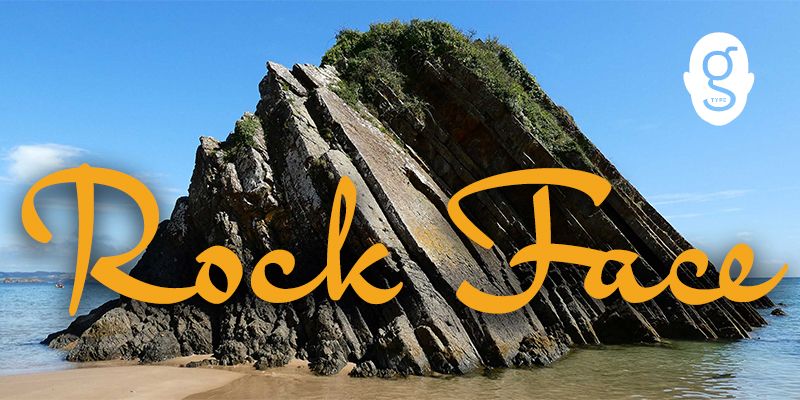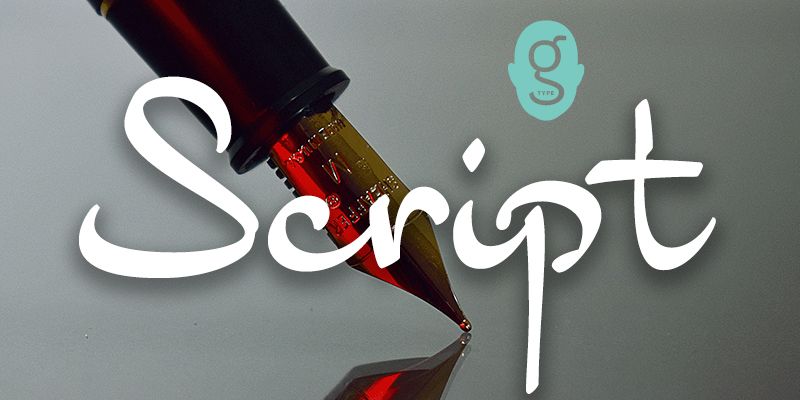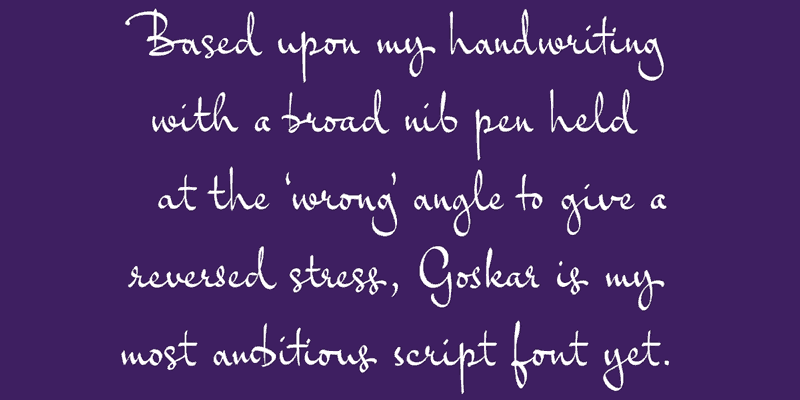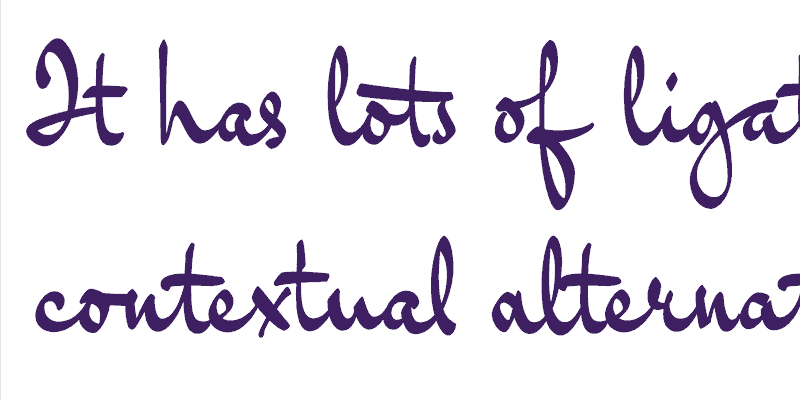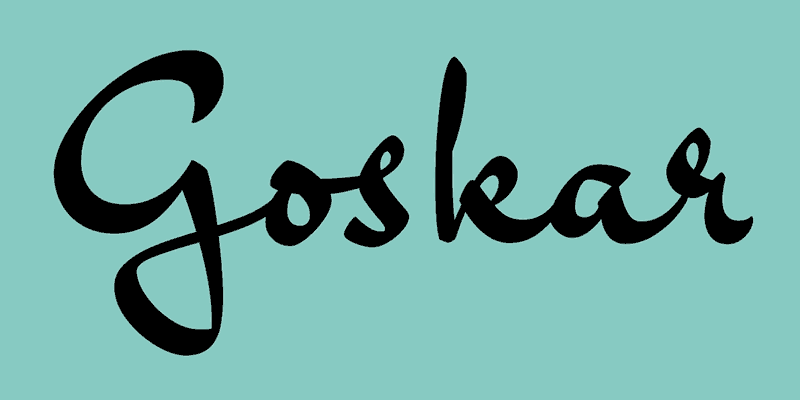
Goskar is our most ambitious script font yet, taking shape when a broad nib fountain pen was held at the ‘wrong’ angle, resulting in handwriting with a reversed stress appearance. Goskar is named after an imposing rock on Tenby’s north shore in Wales. It’s an ultra-realistic single axis (weight) Variable Font brimming with character.